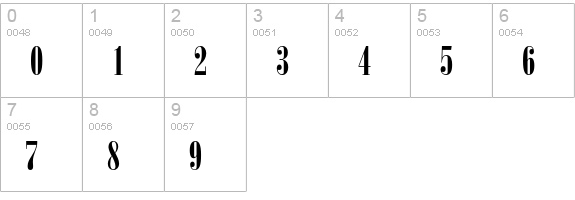
Bodoni Poster Compressed is a distinctive, condensed-width variant in the Bodoni typeface family \xE2\x80\x94 well suited to design and typography projects.
Bodoni Poster Compressed is a stunning display font that exudes elegance and sophistication. With its tall, elongated letterforms and sharp serifs, this typeface is perfect for making a bold statement in headlines, titles, and posters. The sleek design and high contrast of Bodoni Poster Compressed make it a standout choice for designers looking to add a touch of modernity to their projects. Best of all, Bodoni Poster Compressed is available for free download at FontsMarket.com. This means that you can easily access and use this exquisite font in your design projects without any cost. Elevate your creations with the timeless beauty of Bodoni Poster Compressed and make a lasting impression on your audience.